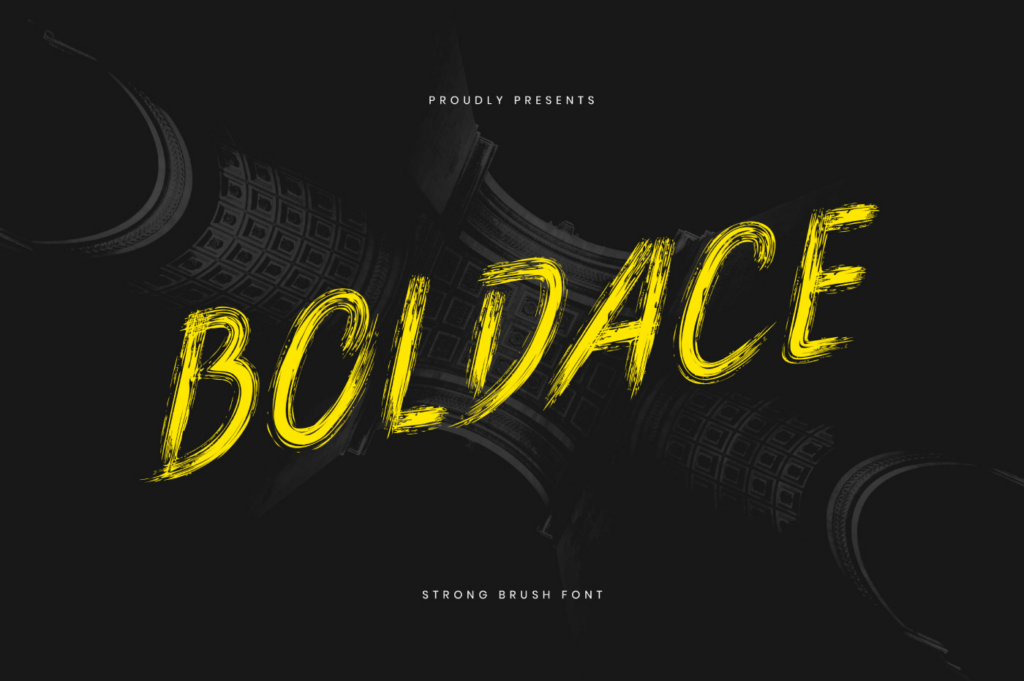
Boldace – a new strong brush font created by Namara Creative Studio. It includes uppercase characters with a unique rough appearance – perfect for headlines, quotes, marketing materials & much more!